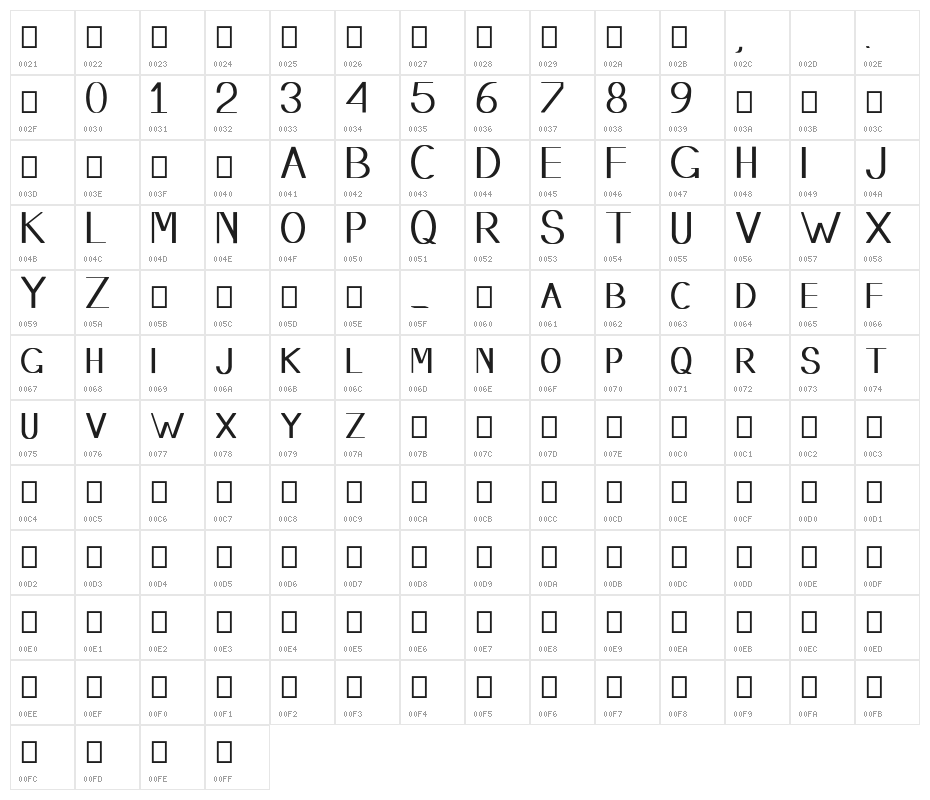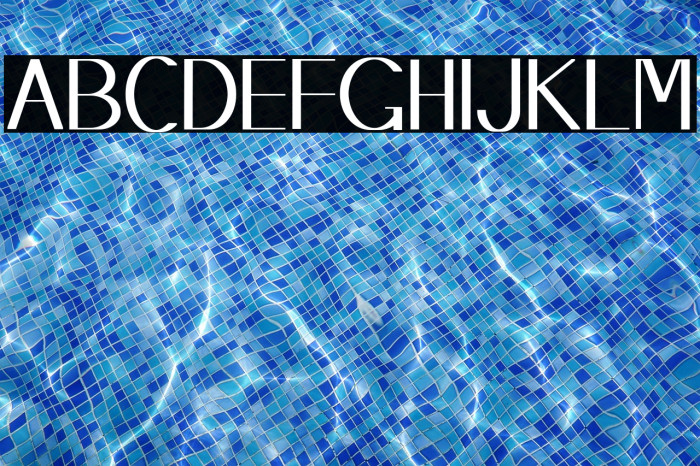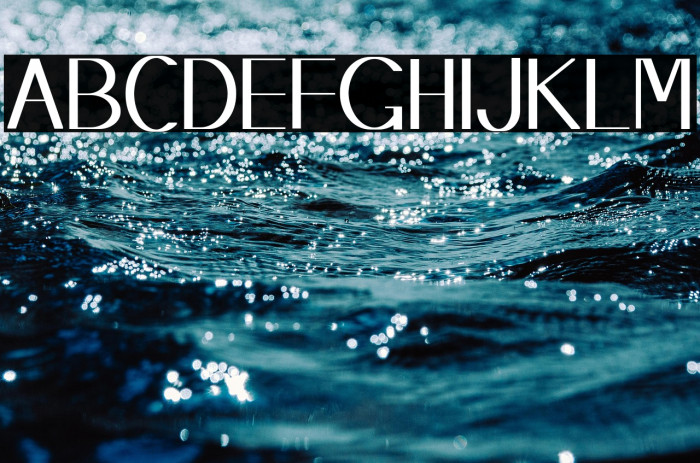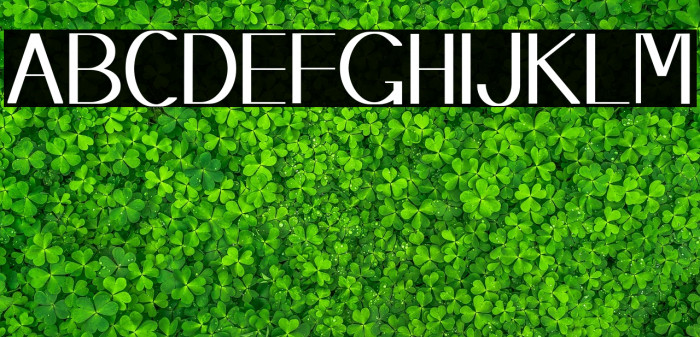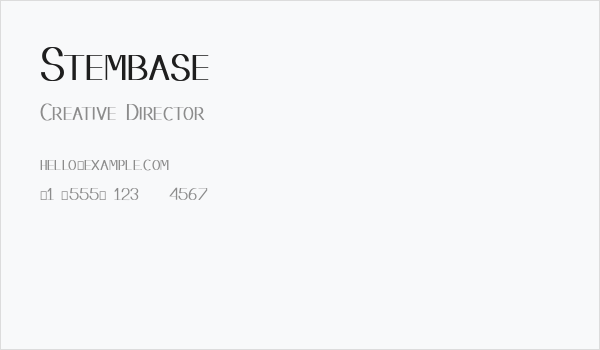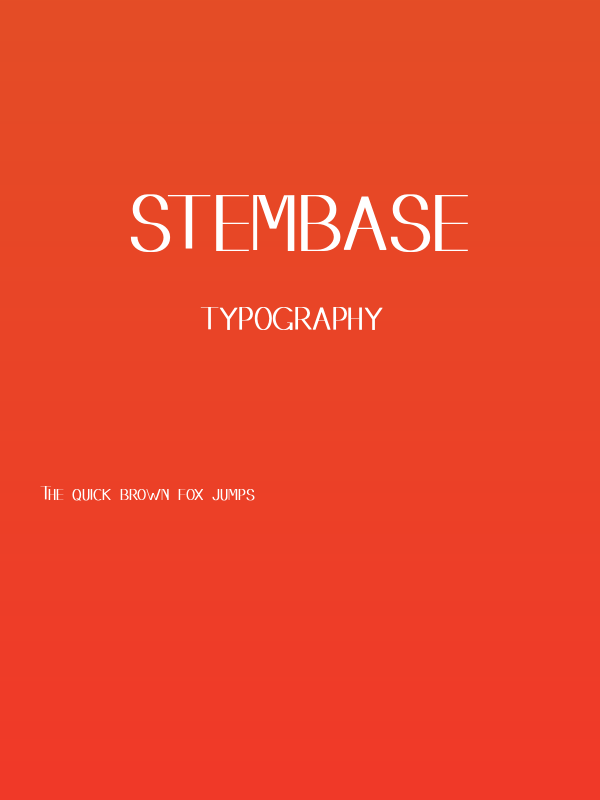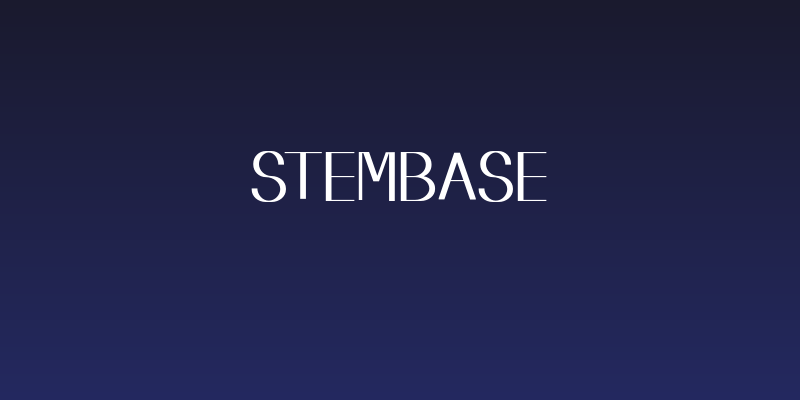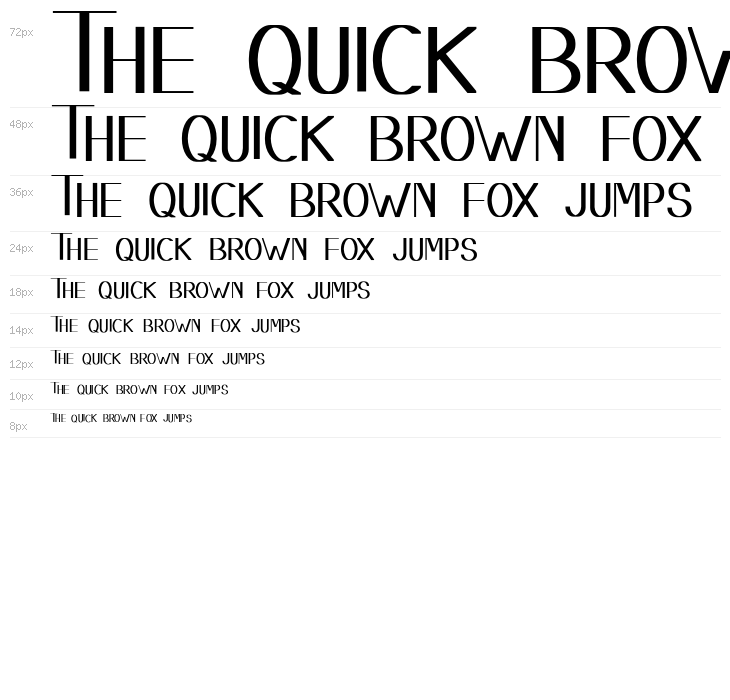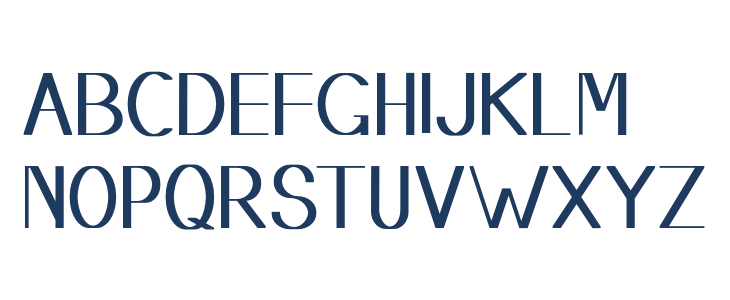
Stembase Font
This font features a clean and modern sans-serif design, characterized by its sharp edges and geometric shapes. The uppercase letters are bold and striking, with a uniform height that ensures readability. The lowercase letters maintain a consistent style, offering a harmonious balance between the characters. The numerals are clear and distinct, making them suitable for various applications. The special characters are well-integrated, matching the overall aesthetic of the font. The design is versatile, making it suitable for both digital and print media.
| Use Case | Headlines, Logos, Digital Interfaces |
| Proposed Projects | Ideal for branding, advertising, digital interfaces, and editorial design. |